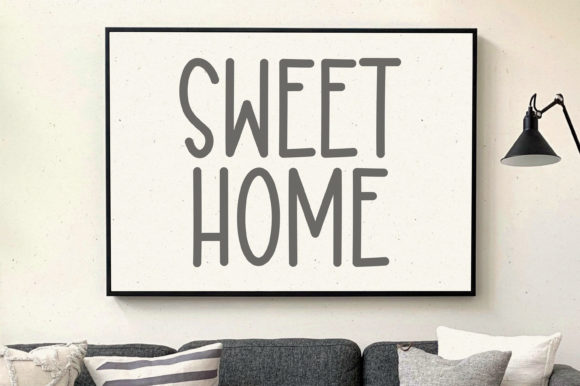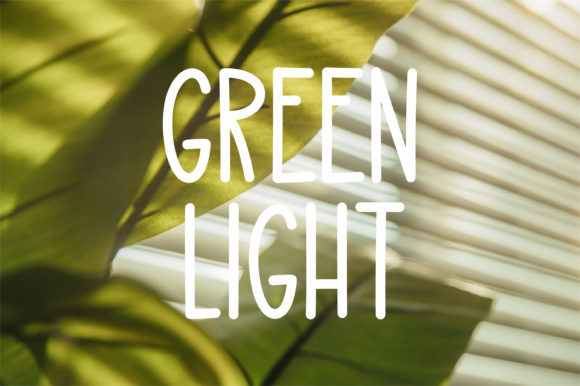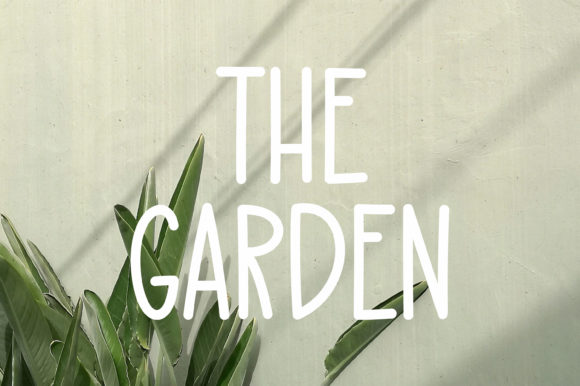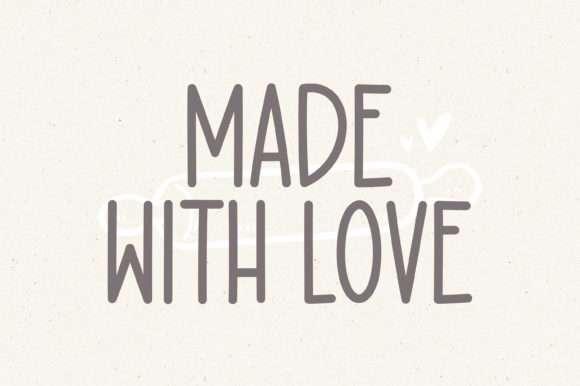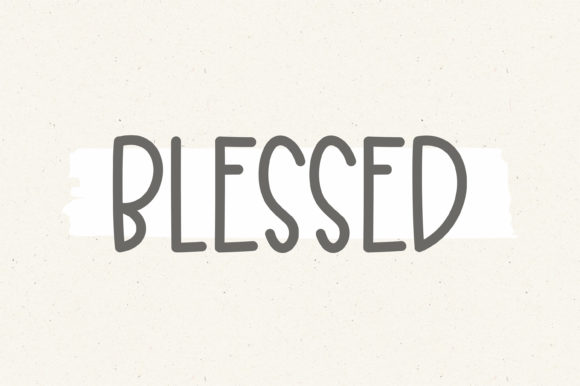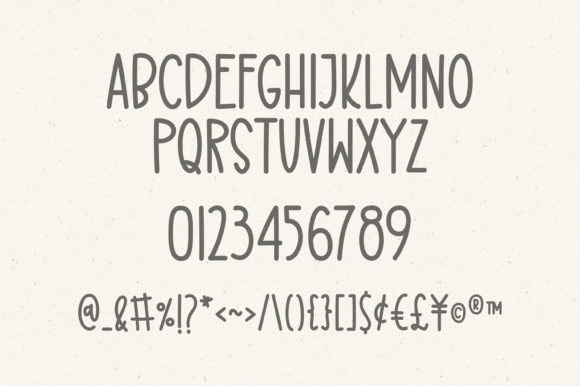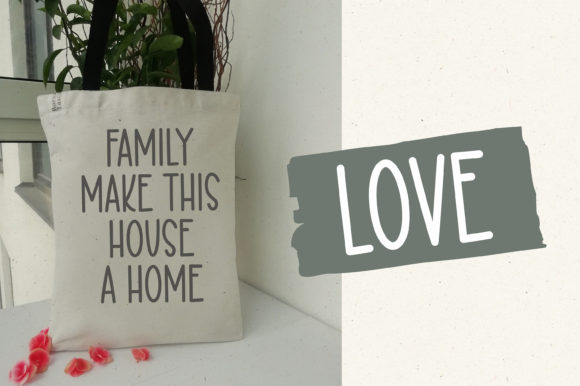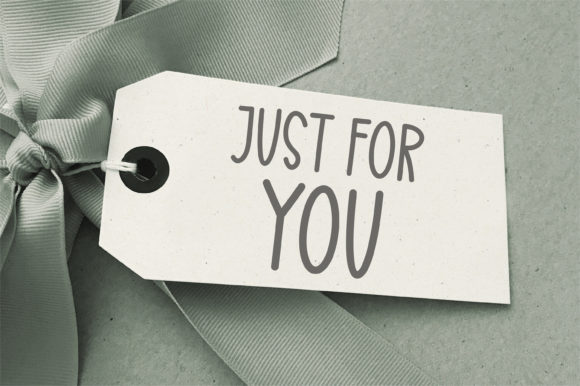
Fresh Lemonade Font
About Fresh Lemonade Font
Fresh Lemonade is a tall handwritten font that brings a refreshing and lively quality to your creative projects. This versatile typeface is well-suited for a variety of applications, including SVG designs, mug decorations, pottery, shirts, hats, tote bags, card making, wall art, interior prints, and various other creations. Regardless of the topic or theme, Fresh Lemonade stands out as a wonderful asset to your font library, with the potential to enhance any creation.
The tall and handwritten style of Fresh Lemonade adds a touch of playfulness and uniqueness to your designs. Whether used for decorating mugs, creating vibrant SVG designs, or making personalized tote bags, this font contributes to a lively and dynamic visual aesthetic.
Its versatility allows Fresh Lemonade to adapt effortlessly to different design contexts, making it a valuable choice for a wide range of creative applications. The font’s tall and energetic letters bring a sense of freshness and positivity to your projects, making it an excellent addition to your font library.
In summary, Fresh Lemonade is more than just a font; it’s a tall handwritten typeface that injects a refreshing and lively spirit into your creative endeavors. Whether you’re working on SVG designs, mug decorations, shirts, or any other project, this font adds a wonderful touch that enhances the overall visual appeal. With Fresh Lemonade, your creations are sure to stand out with a burst of positivity and energy.